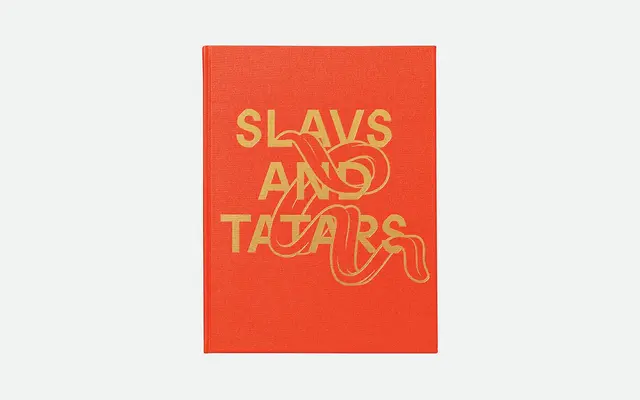
ABC Prophet
Dinamo Typefaces · Dinamo (Johannes Breyer and Fabian Harb, with Erkin Karamemet) · 2016
A humanist sans inspired by Joseph Churchward's Georgina, marrying calligraphic warmth with mechanical clarity across six weights and italics.
A humanist sans by Dinamo (Johannes Breyer and Fabian Harb, with Erkin Karamemet) inspired by Joseph Churchward's Georgina. Prophet bridges hand-drawn and mechanical genres, combining warm calligraphic curves with a clean machine-like sensibility. It carries family significance as the first typeface Dinamo's co-founders worked on together; first used on personal projects, then released in 2016 as a family of six weights with corresponding italics. Stylistic sets include an alternate single-storey 'a' (ss01) and tabular figures.
Dinamo describe Prophet as inspired by Joseph Churchward's Georgina, combining warm calligraphic curves with a clean, machine-like sensibility, bridging the hand-drawn and mechanical genres. It is also the first typeface Dinamo co-founders Johannes Breyer and Fabian Harb worked on together.